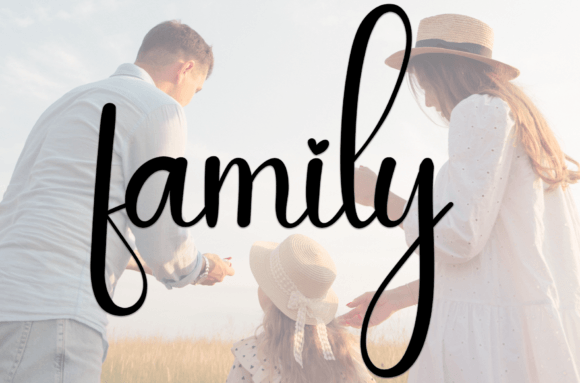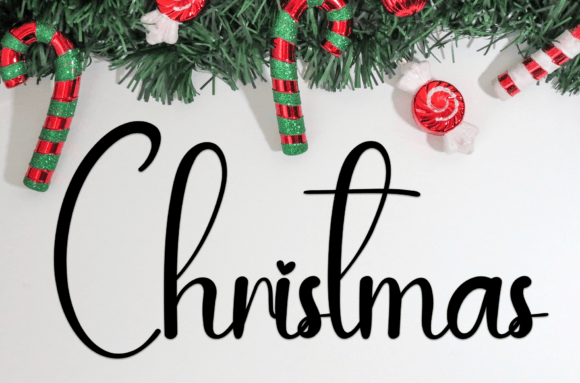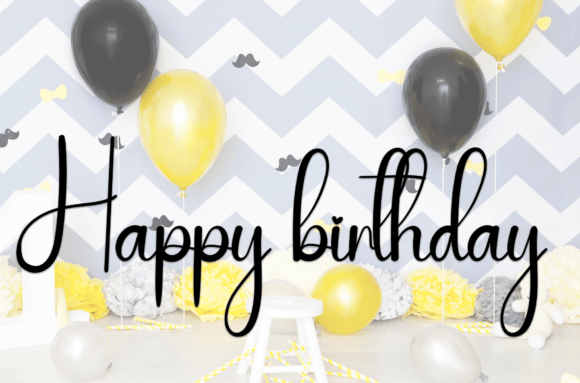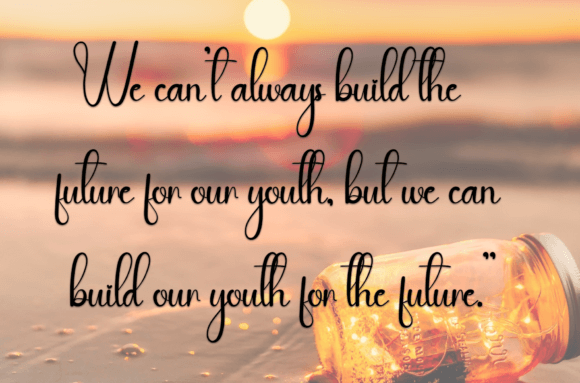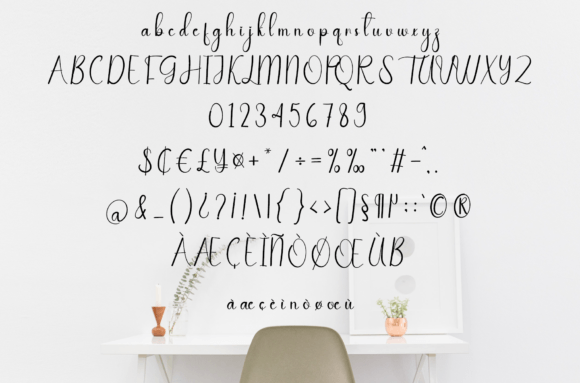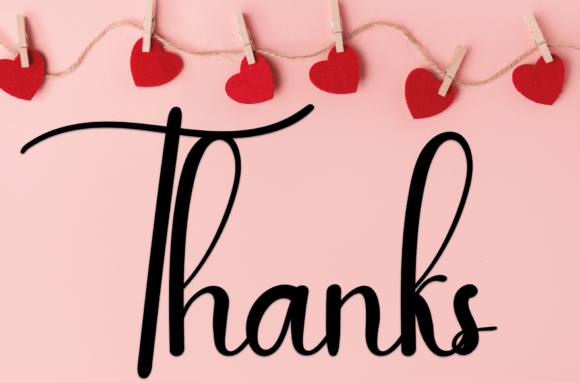
Gockey Game Font: The Sweet and Friendly Handwritten Font for Your Creative Projects
Are you a designer or crafter looking for a font that can add a personal touch to your creations? Look no further than the Gockey Game font! This sweet and friendly handwritten font is perfect for a variety of projects, from wedding invitations and cards to branding and packaging. In this article, we’ll take a closer look at the Gockey Game font and explore its features, benefits, and uses.
What is Gockey Game Font?
Gockey Game font is a handwritten font designed to bring a sense of fun and relaxation to your designs. Its sweet and friendly style makes it ideal for projects that require a personal touch. The font is characterized by its flowing lines, rounded edges, and whimsical feel. It’s perfect for creating designs that are both elegant and playful.
Features of Gockey Game Font
So, what makes Gockey Game font so special? Here are some of its key features:
- Handwritten style: Gockey Game font is a handwritten font that mimics the look of handwriting. It’s perfect for creating designs that look personal and unique.
- Sweet and friendly: The font has a sweet and friendly style that’s perfect for projects that require a touch of warmth and personality.
- Fun and relaxed: Gockey Game font is fun and relaxed, making it ideal for projects that require a playful touch.
- Easy to read: Despite its handwritten style, Gockey Game font is easy to read and understand. It’s perfect for body text and headings.
Benefits of Using Gockey Game Font
So, why should you use Gockey Game font in your projects? Here are some of its benefits:
- Personal touch: Gockey Game font adds a personal touch to your designs, making them look unique and special.
- Emotional connection: The font’s sweet and friendly style creates an emotional connection with your audience, making them more engaged and invested in your message.
- Versatility: Gockey Game font is versatile and can be used in a variety of projects, from wedding invitations and cards to branding and packaging.
Uses of Gockey Game Font
So, what can you use Gockey Game font for? Here are some ideas:
- Wedding invitations: Gockey Game font is perfect for wedding invitations, adding a touch of romance and elegance to your designs.
- Cards: The font is great for creating cards for special occasions, such as birthdays, anniversaries, and holidays.
- Branding and packaging: Gockey Game font can be used in branding and packaging to add a personal touch to your products.
- Social media graphics: The font is perfect for creating social media graphics, such as Facebook posts and Instagram stories.
Tips for Using Gockey Game Font
Here are some tips for using Gockey Game font in your projects:
- Use it sparingly: Use Gockey Game font sparingly to add a touch of elegance and sophistication to your designs.
- Pair it with other fonts: Pair Gockey Game font with other fonts to create a unique and interesting contrast.
- Experiment with colors: Experiment with different colors to find the perfect combination that works with Gockey Game font.
In conclusion, Gockey Game font is a sweet and friendly handwritten font that’s perfect for adding a personal touch to your designs. Its fun and relaxed style makes it ideal for a variety of projects, from wedding invitations and cards to branding and packaging. With its ease of use and versatility, Gockey Game font is a great addition to any designer’s toolkit.